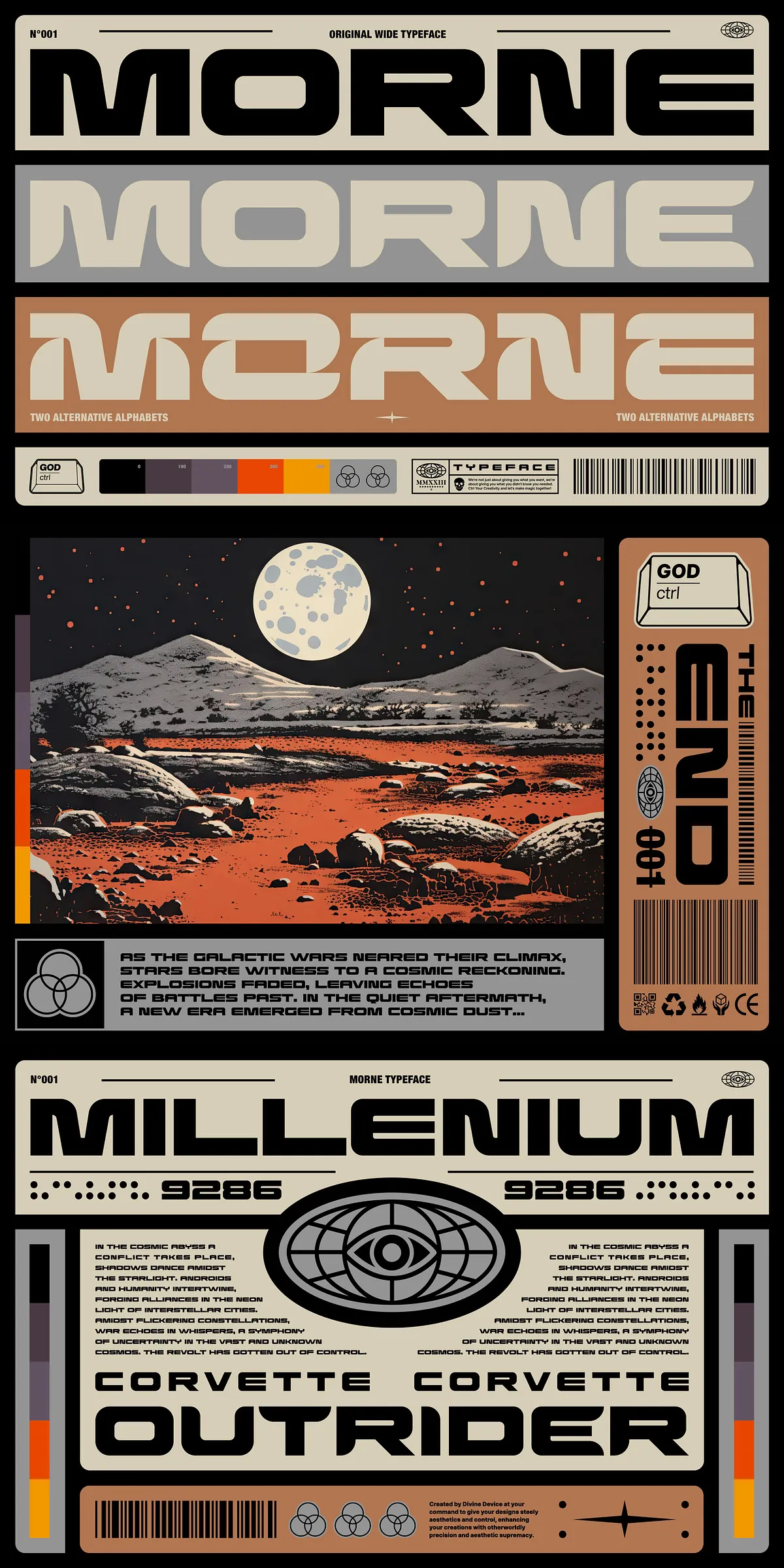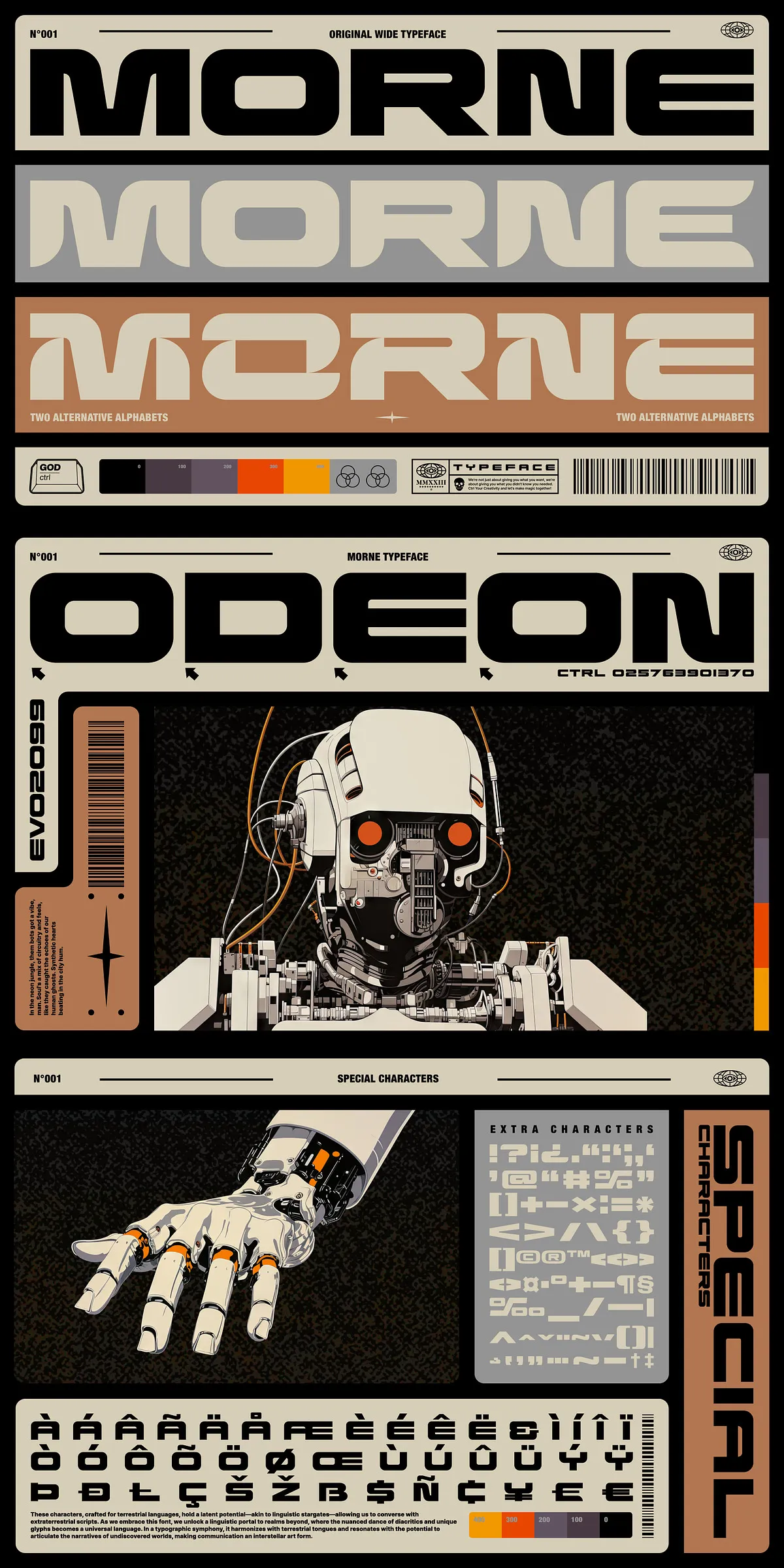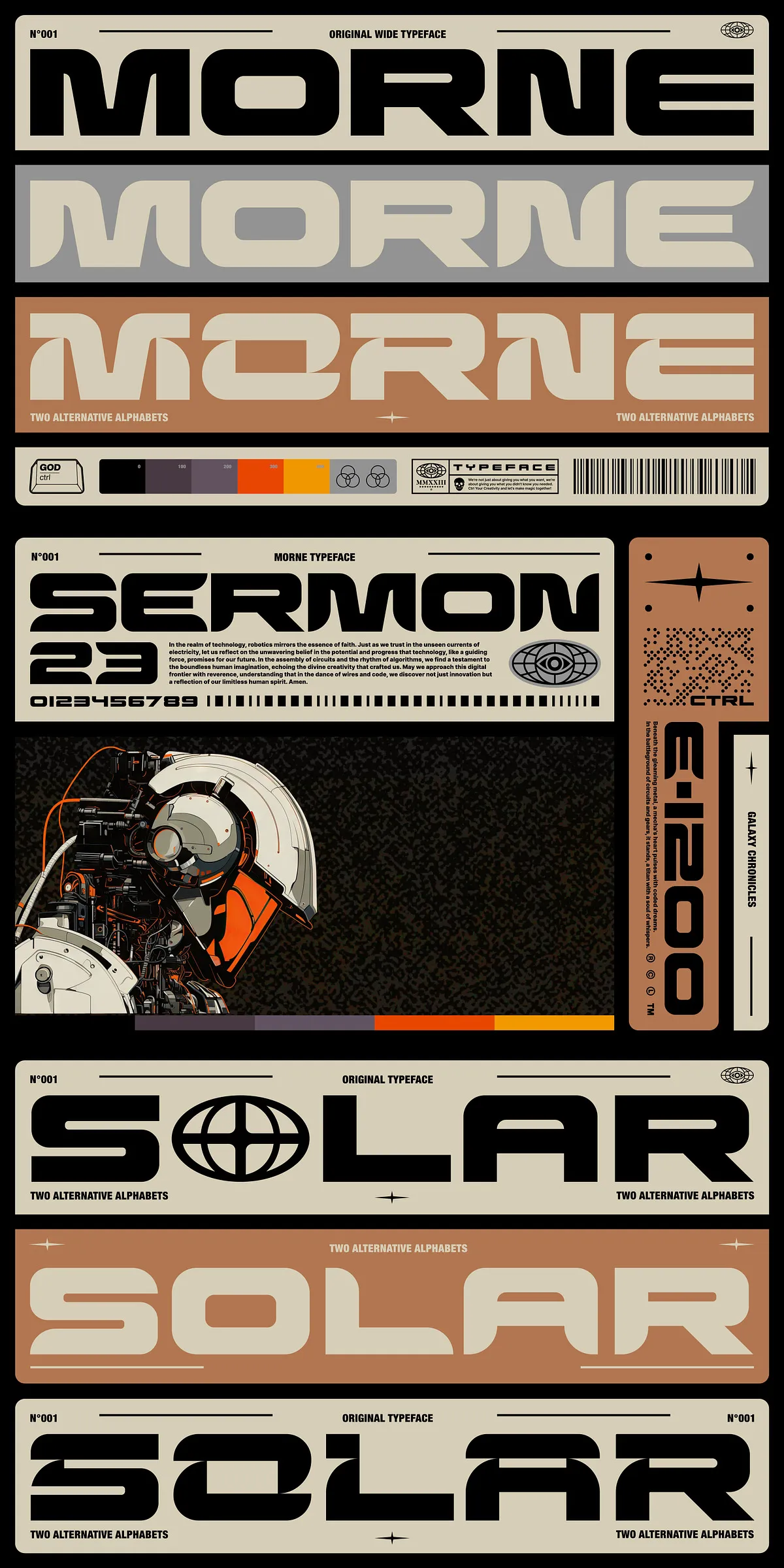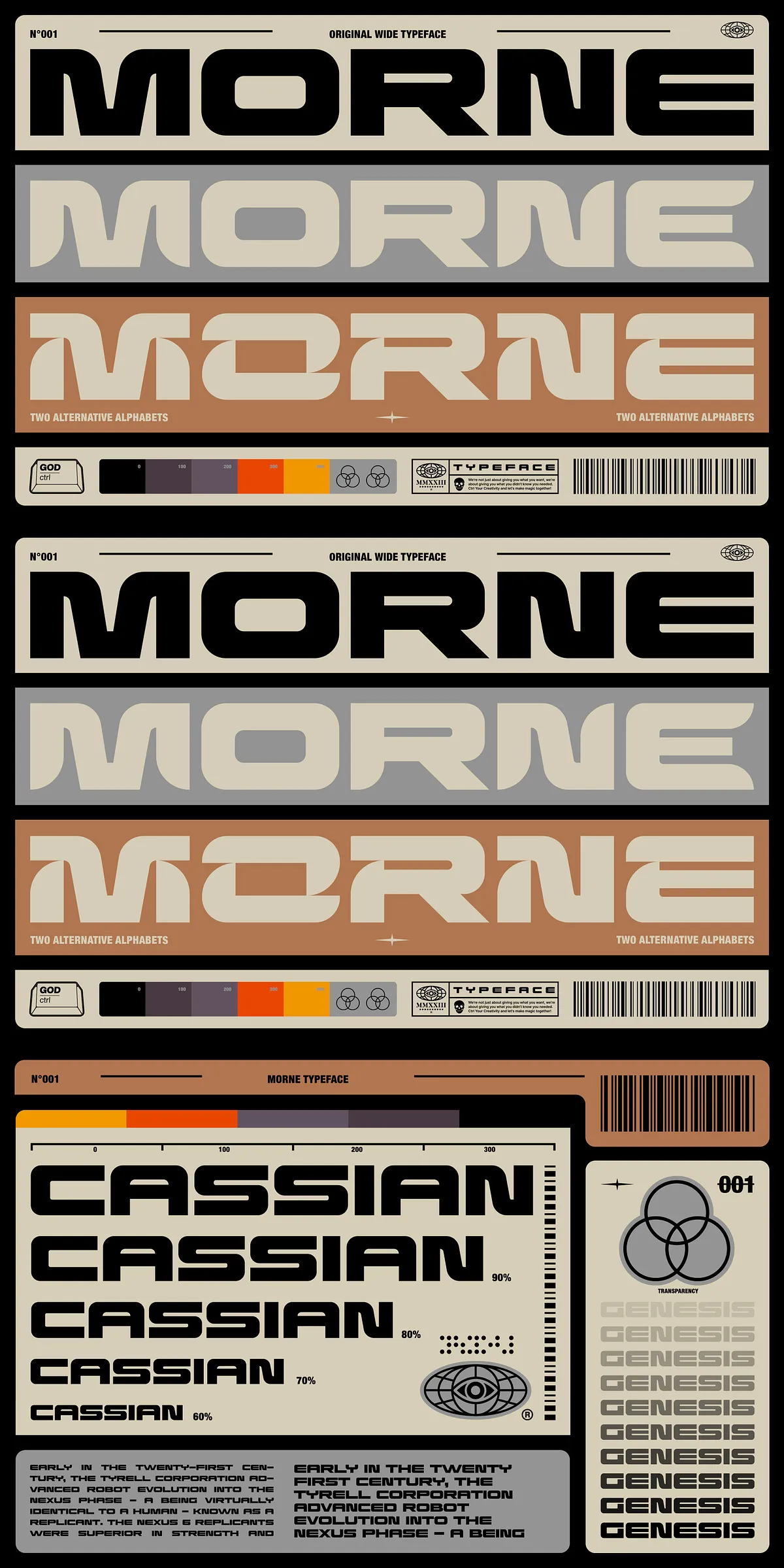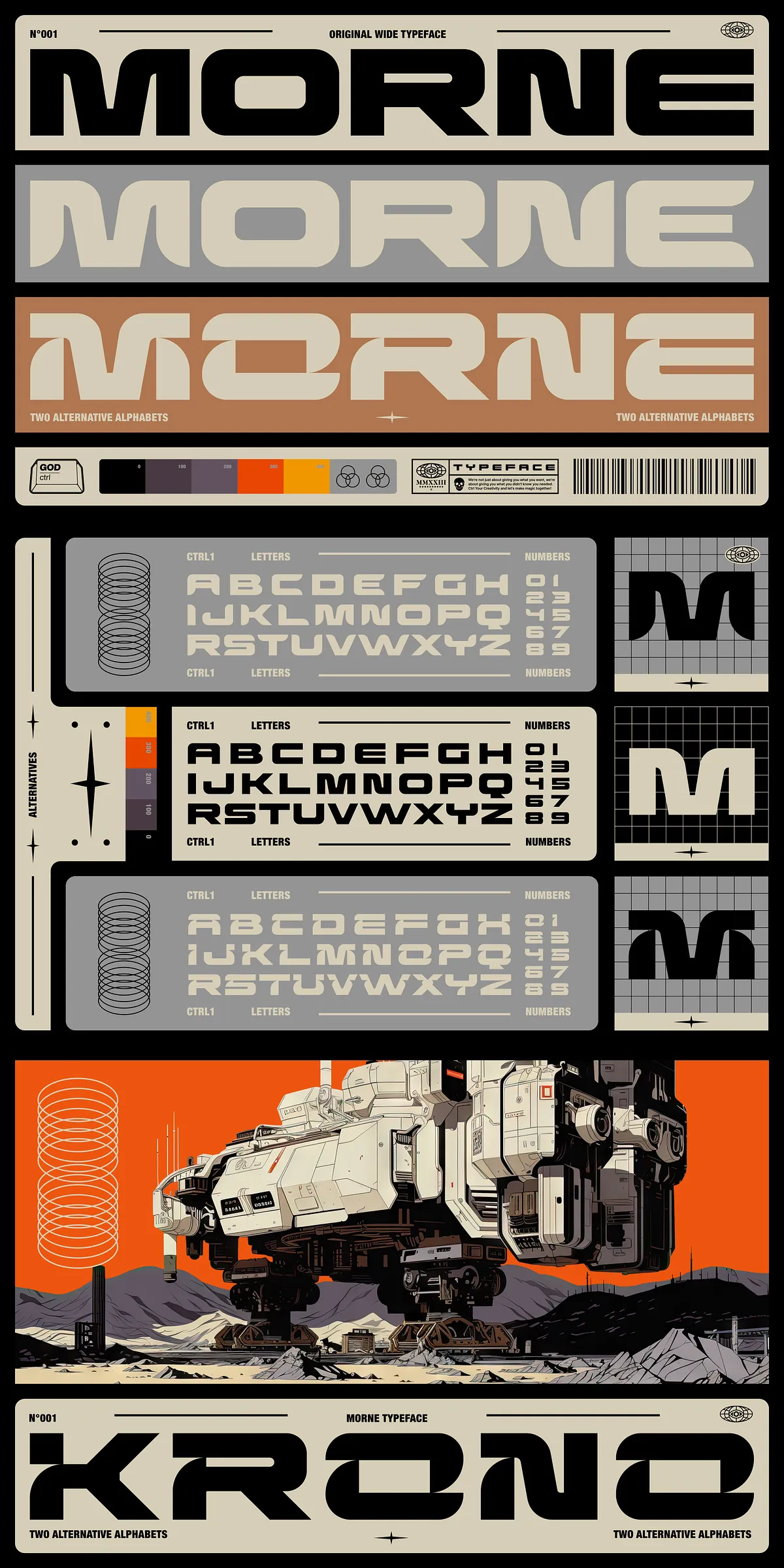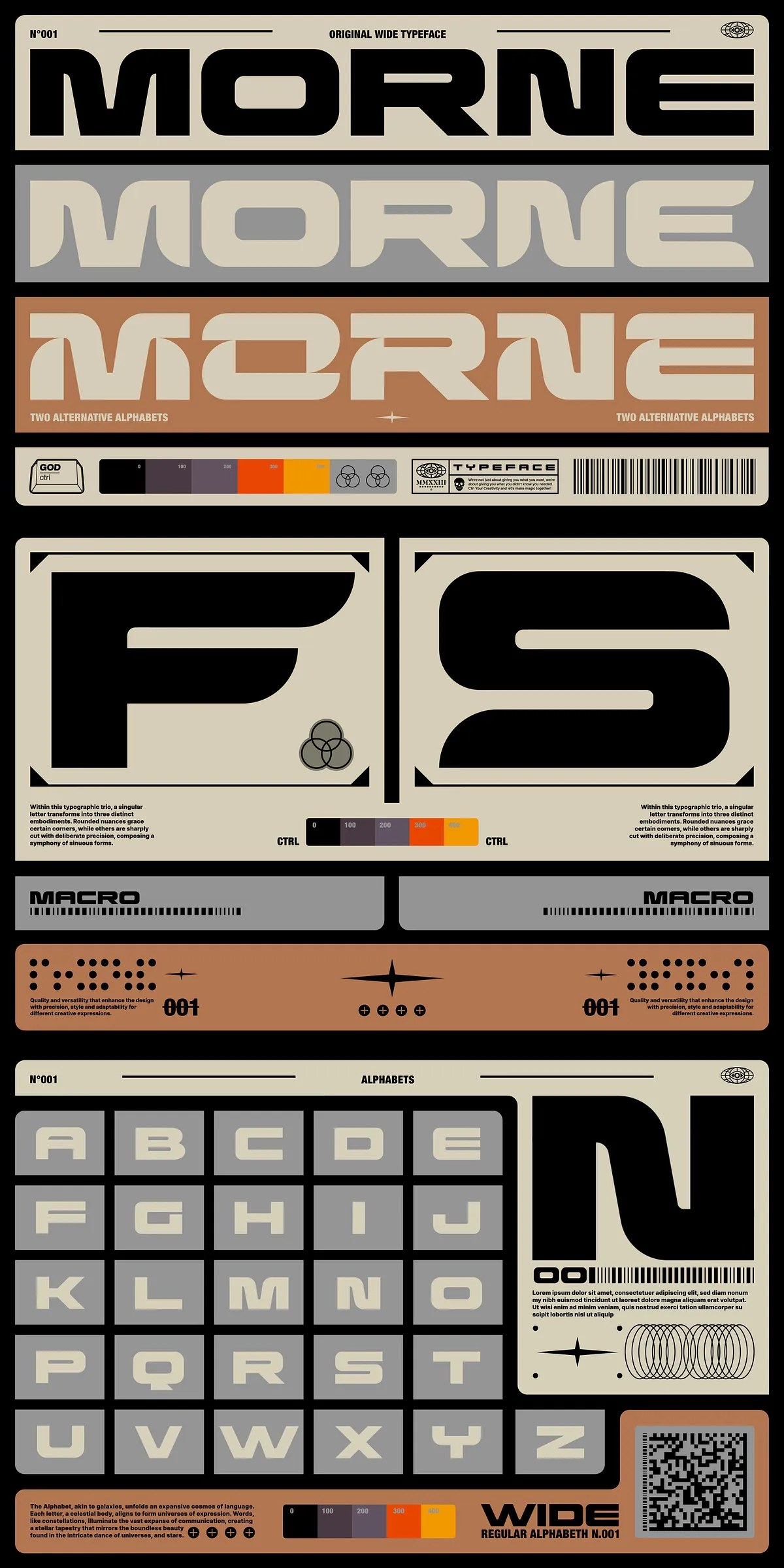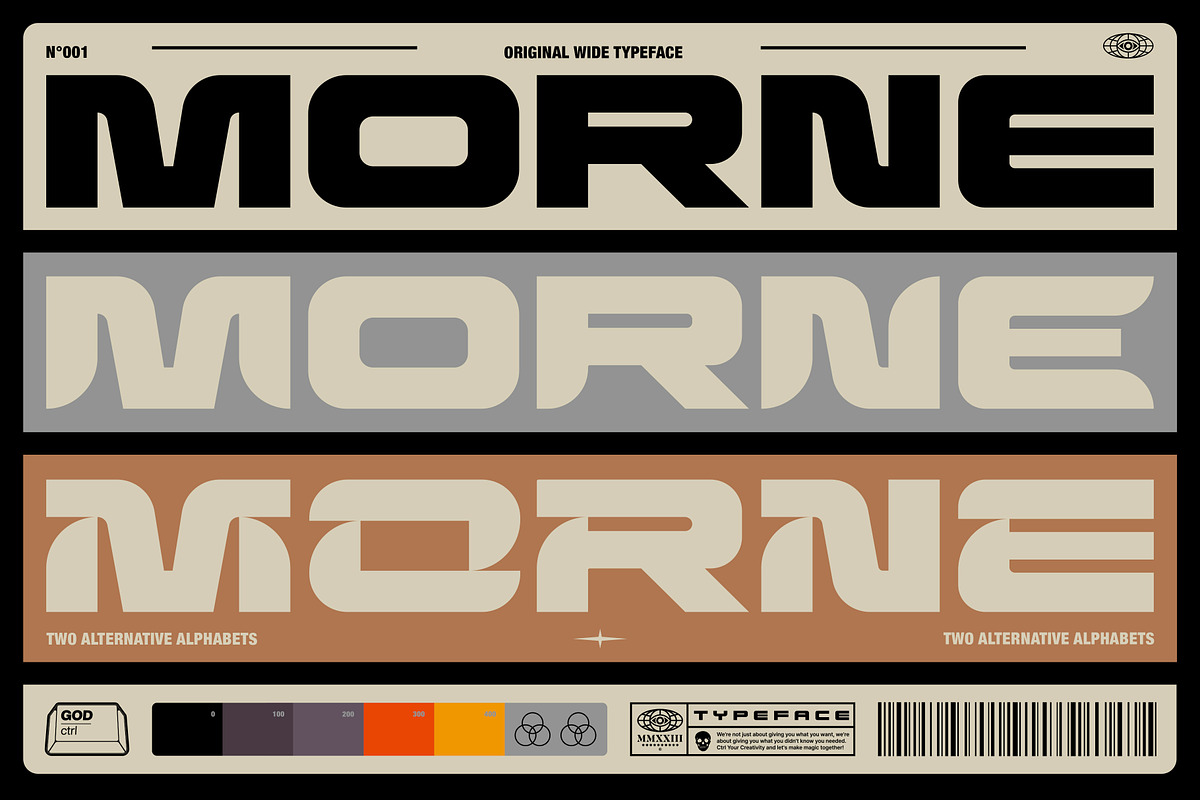
Step into the spotlight with Morne—a typeface built not to blend in, but to make a statement. This is not a subtle companion for quiet design; this is a visual punch, a typographic force that slices through noise and grabs your audience by the eyes. Designed for creatives who thrive on impact, Morne brings a fearless, heavy presence to every project it touches. Whether you’re crafting a killer headline, designing a high-impact poster, or building a brand identity that refuses to be ignored, Morne doesn’t just keep pace—it leads the charge.
Engineered for Power and Precision
Morne doesn’t settle for ordinary. It’s a triple-threat typeface built with boldness in mind: wide letterforms, heavy stroke weights, and dynamic proportions that deliver visual gravity. Every character is sculpted to stand out, ensuring your message isn’t just read—it’s felt. With three distinct alternatives for each letter and number, Morne gives you creative control without compromise. Choose the version that best matches your design mood—whether that’s raw intensity, refined contrast, or architectural power.
A Typeface That Adapts to Your Vision
Designed for maximum versatility, Morne supports a comprehensive set of features that empower your workflow:
- Three Alternate Styles Per Character: Each letter and number comes with three unique variations so you can tailor the look and feel of your text to match your creative intent.
- Extensive Character Set: Includes special glyphs, punctuation, mathematical symbols, currency signs, and more—256 characters in total, ensuring full functionality for complex layouts and international content.
- Multilingual Support: Full compatibility with multiple languages including English, Spanish, French, German, Italian, Portuguese, Dutch, Swedish, Norwegian, Danish, Finnish, Polish, Turkish, and more—ideal for global brands and international campaigns.
Seamless Integration Across Creative Workflows
From concept to execution, Morne integrates effortlessly into your design process. Whether you’re building a website, creating editorial layouts, developing branding assets, or producing promotional materials, this typeface adapts instantly. The clean, modern structure ensures readability at any size, while its boldness ensures visual dominance in large-scale applications like billboards, banners, and packaging.
Ready for Immediate Design Impact
Where Morne Shines: Real-World Applications
Morne isn’t just a font—it’s a design catalyst. Use it to:
- Design Killer Headlines: Make every article, campaign, or social media post impossible to ignore with aggressive typographic hierarchy.
- Build Powerful Brand Identities: Craft logos and brand systems with bold, distinctive personalities that resonate deeply.
- Create Eye-Catching Posters & Flyers: Command attention at events, concerts, exhibitions, and street campaigns.
- Enhance Merchandise & Apparel: Elevate t-shirts, caps, mugs, and bags with impactful, statement-making text.
- Power Digital Experiences: Use Morne in web headers, app UIs, and video titles to deliver instant visual impact.
Take Control of Your Design Narrative with Morne
Morne is more than a typeface. It’s a declaration. A rebellion against flat, forgettable letterforms. It’s the choice of creators who believe that typography should provoke emotion, provoke thought, and provoke action. It’s bold. It’s unyielding. It’s you.